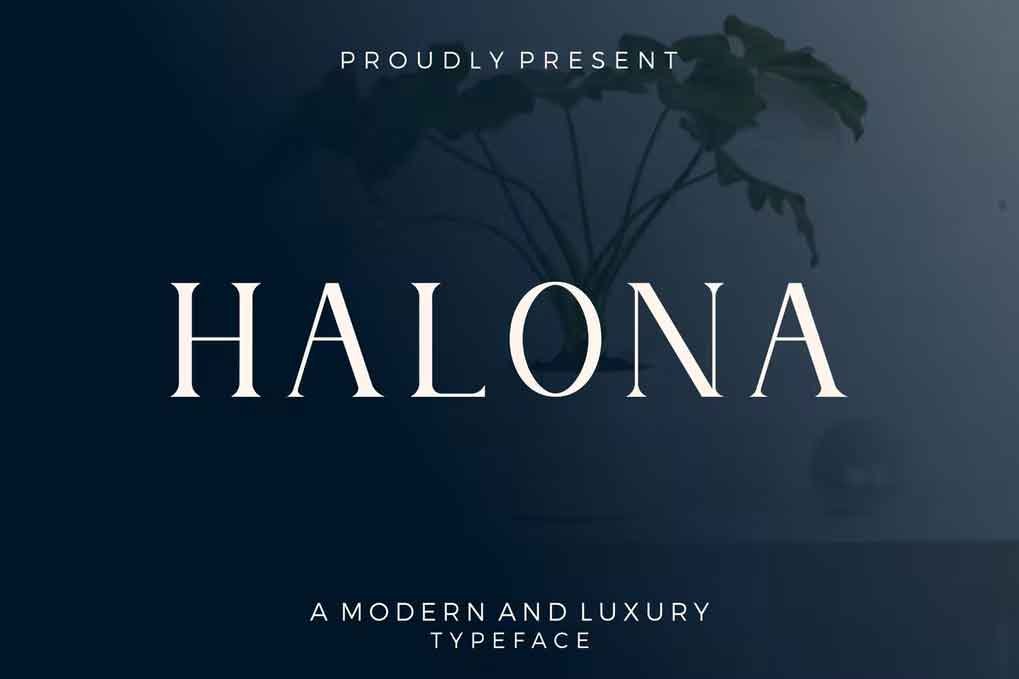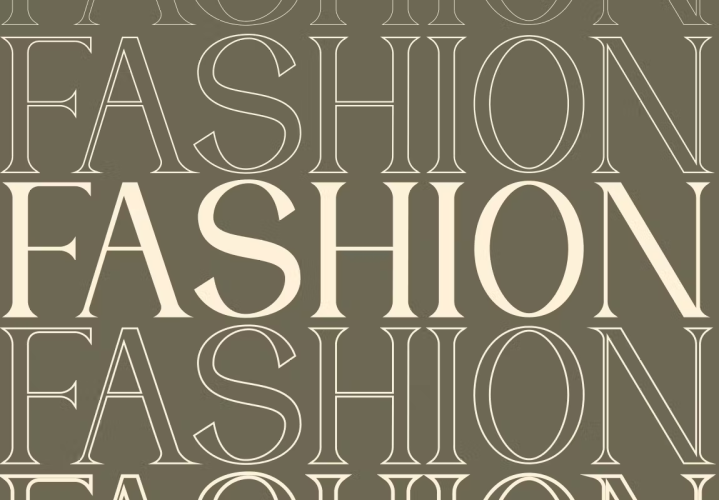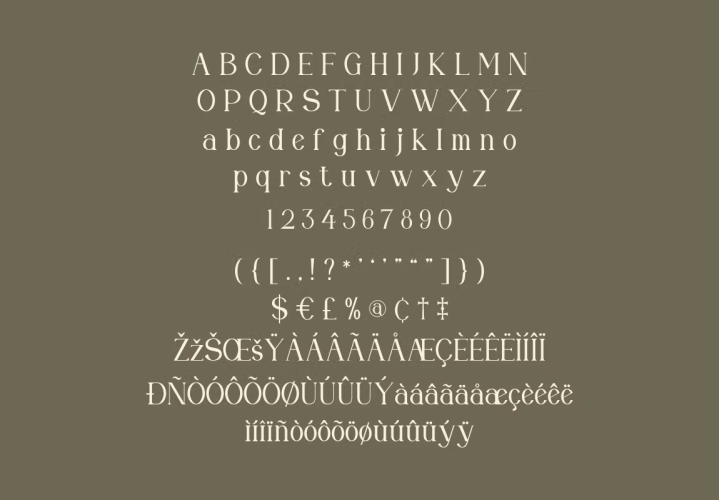
Halona Modern Serif Font
Introducing of our new product the name is Halona a Modern Serif Font, Halona inspired by the upscale luxury style. This font is perfect for posters, social media posts, branding, personal projects, etc.
Halona Modern Serif Font is a Serif Fonts font that brings a professional and versatile look to your projects. Introducing of our new product the name is Halona a Modern Serif Font, Halona inspired by the upscale luxury style.